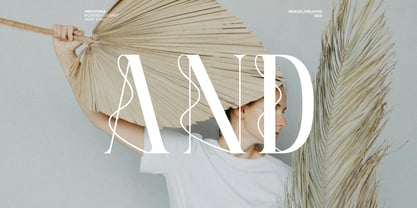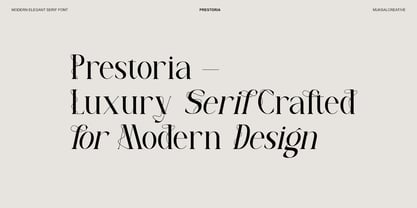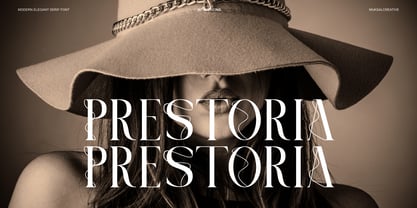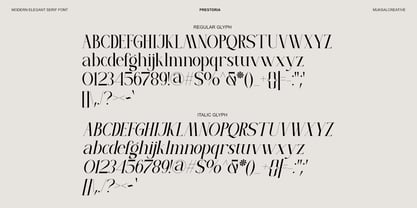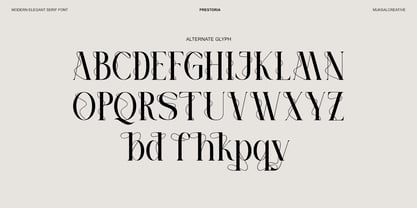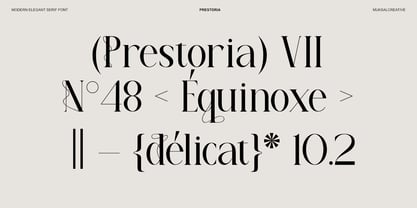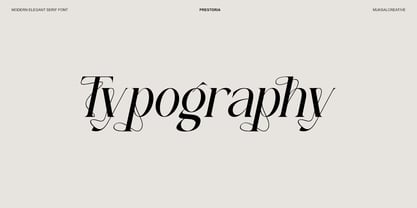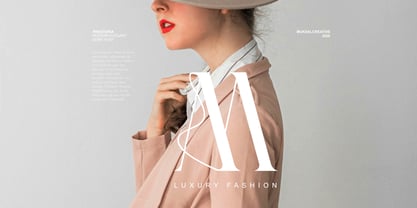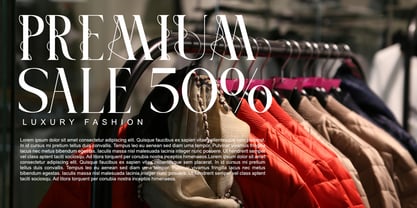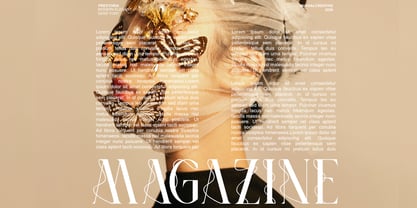
Prestoria
by Muksal Creatives
The Prestoria Font Family was designed by Muksalmina and published by Muksal Creatives. Prestoria contains 2 styles and family package options. More about this family
Prestoria is a modern elegant serif typeface that blends timeless sophistication with contemporary design. Crafted with refined high-contrast strokes and graceful curves, Prestoria delivers a luxurious yet balanced appearance, making it perfect for both editorial and display use. Designed to stand out in headlines while remaining graceful in longer text, Prestoria features stylish ligatures, elegant swashes, and carefully designed alternates that add a distinctive personality to every word. Its classic foundation combined with modern detailing makes Prestoria an excellent choice for high-end branding and creative projects.
Designers: Muksalmina
Foundry: Muksal Creatives